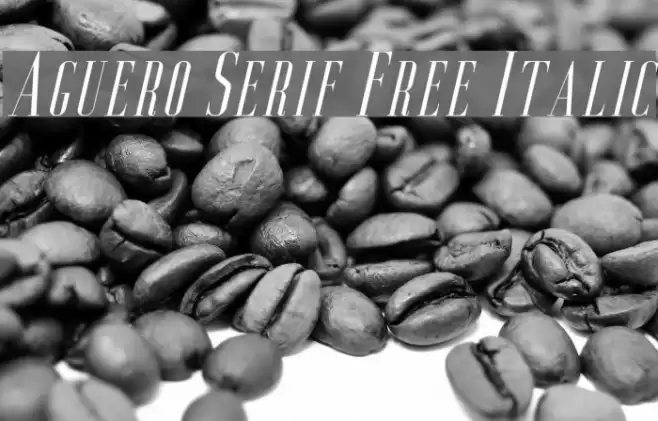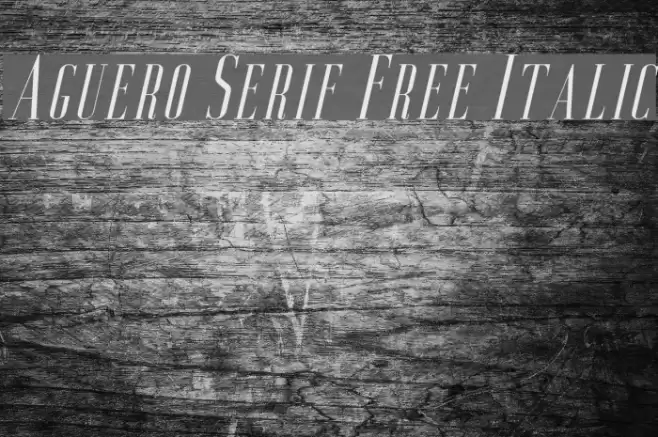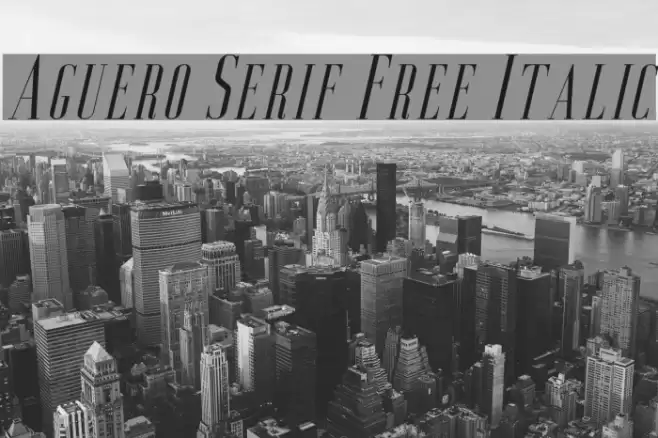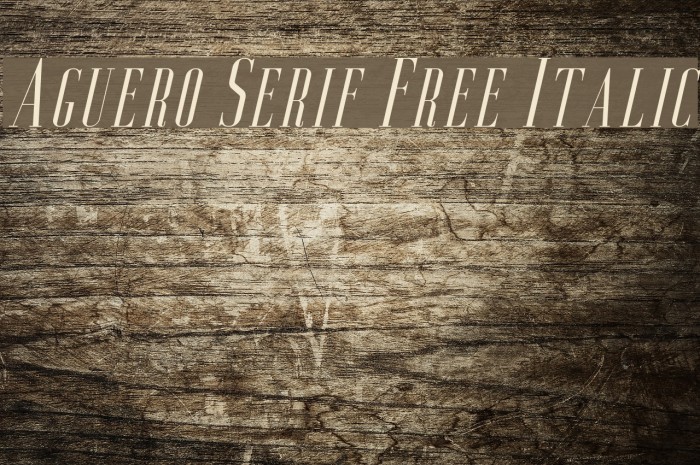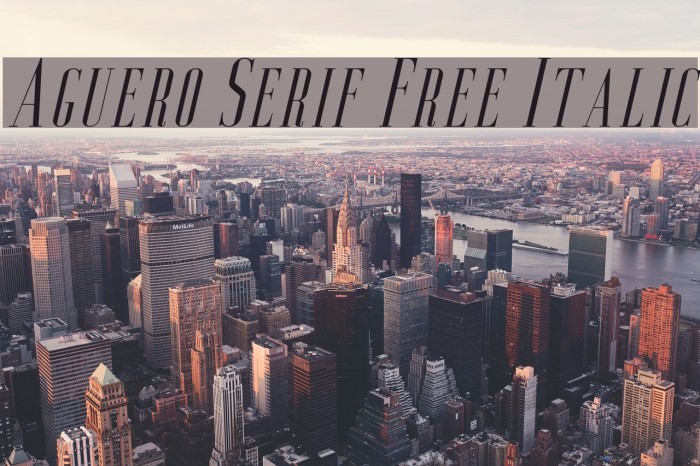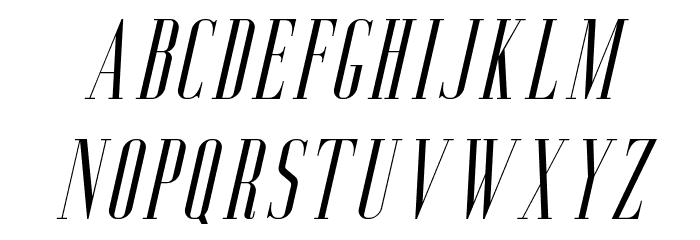
Aguero Serif Free Italic Font
Aguero Serif Free Italic Description
This elegant serif typeface features a distinct italic style, characterized by its elongated and slightly slanted letterforms. The font exhibits a refined and sophisticated appearance, with thin strokes that contrast beautifully against the thicker vertical lines. The serifs are sharp and pronounced, adding a touch of classic elegance to the overall design. The spacing between characters is balanced, allowing for clear readability while maintaining an artistic flair. This font is ideal for projects that require a touch of sophistication and style, such as luxury branding, editorial design, or high-end product packaging.
An elegant serif typeface with a refined italic style and pronounced serifs from Uncategorized fonts.
- Proposed Projects: Luxury branding, editorial design, high-end product packaging, wedding invitations.
- Overall Style: Classic
- Use Case: Headlines, Logos, Editorial design